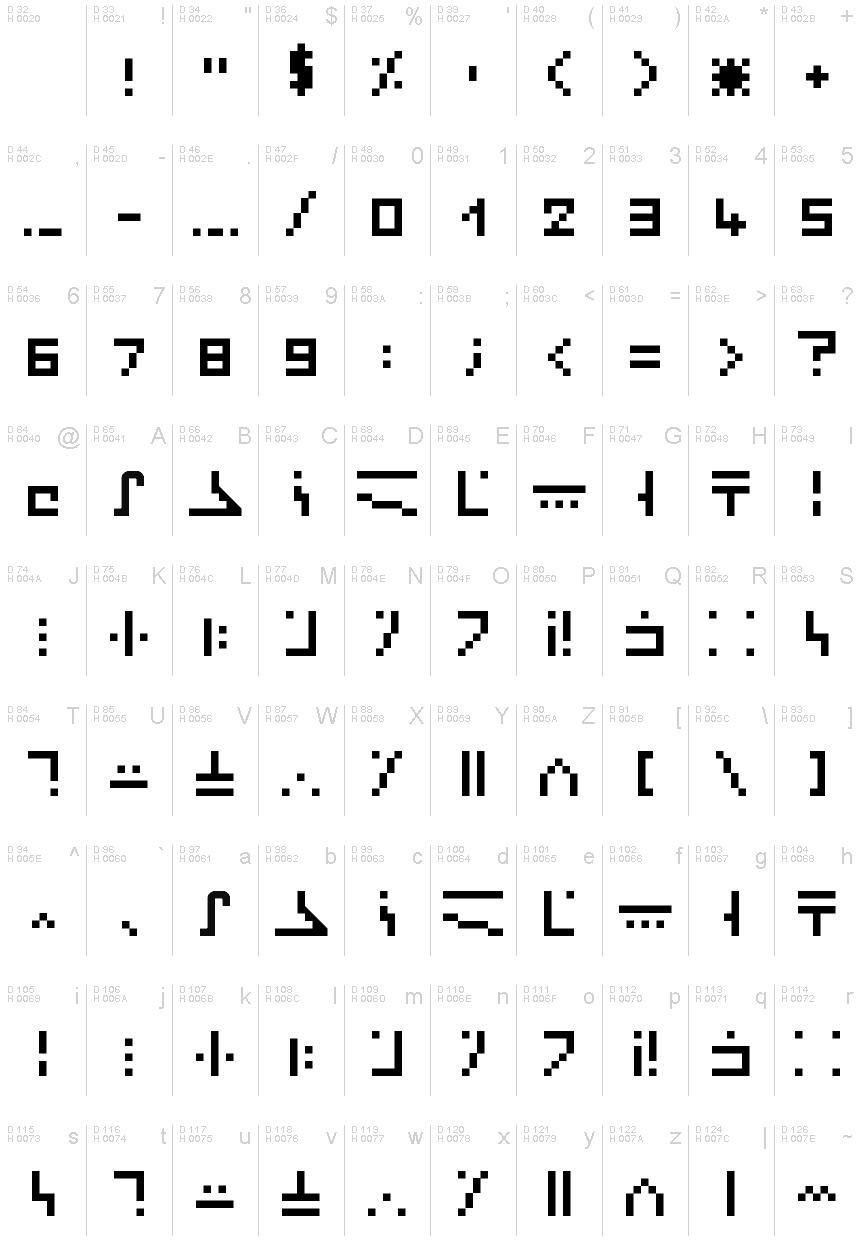
minecraft enchantment Regular
Minecraft Enchantment is a striking dingbat font that faithfully recreates the distinct runic script found in the enchantment tables of the beloved video game. Marked by its angular, arcane aesthetic, this font exudes a mystical, otherworldly charm. Its sharp, geometric letterforms evoke a sense of ancient, occult power, making it an ideal choice for fantasy-themed designs, gaming interfaces, and immersive digital experiences.
The font's unique character set opens up a world of creative possibilities, allowing designers to seamlessly integrate the iconic Minecraft enchantment language into their projects. Its distinct visual identity lends an air of authenticity and worldbuilding, transporting viewers into the rich, imaginative realms of the game. Minecraft Enchantment presents a captivating typographic solution for those seeking to capture the magical essence of the Minecraft universe.